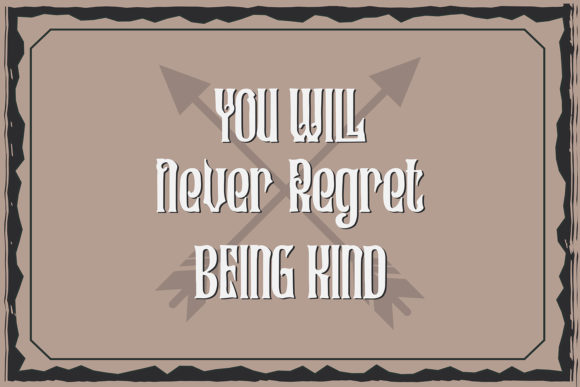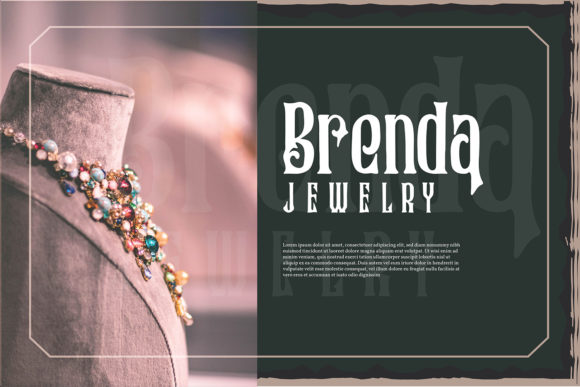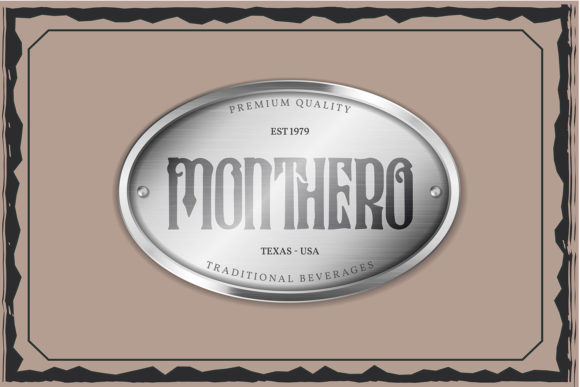
Introduction to Goldrick Font
Goldrick is a classic and vintage styled display font.
It can be employed to labels, branding or pretty much anything that requires a bold touch This font is PUA encoded which means you can access all of the glyphs and swashes with ease.
Key Features of Goldrick Font